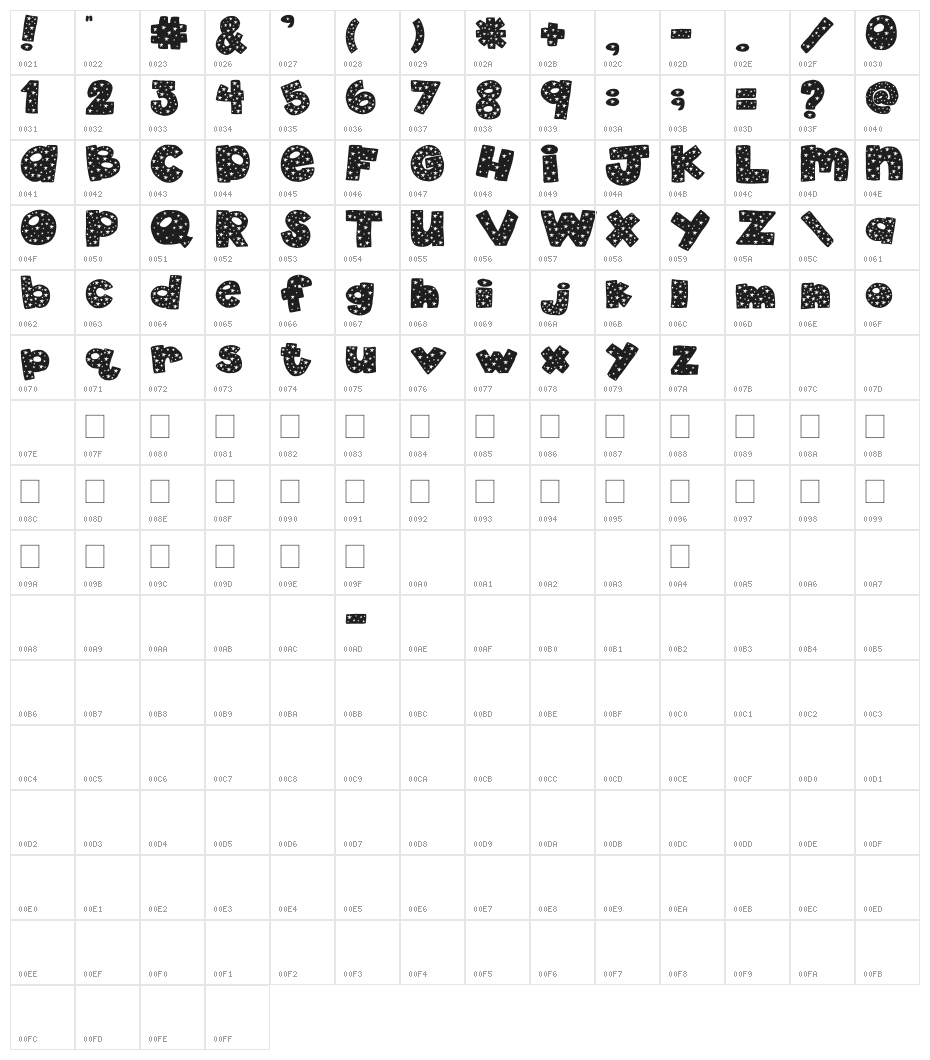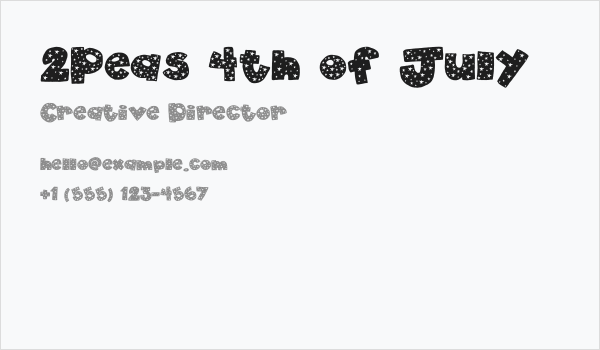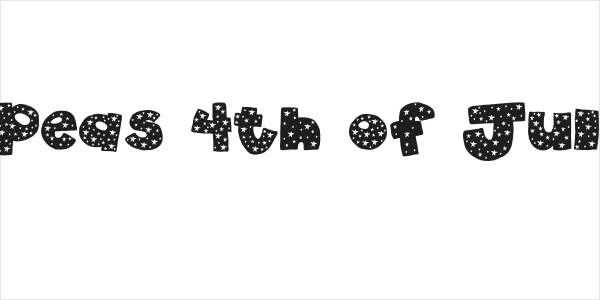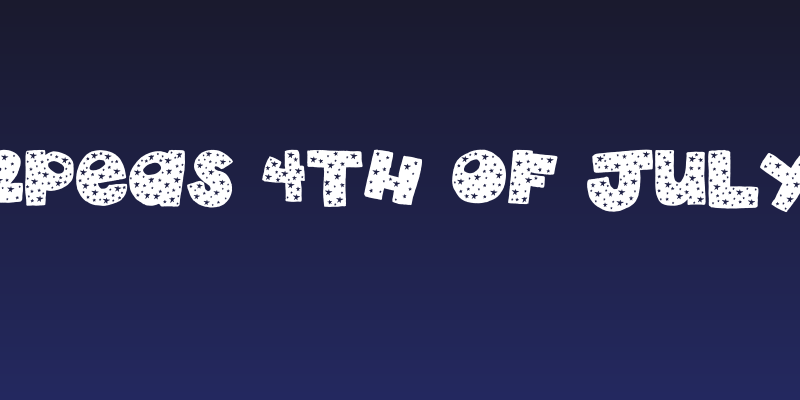
2Peas 4th of July Font
2Peas 4th of July Description
This playful and festive font is characterized by its bold, chunky letters filled with star patterns, evoking a sense of celebration and fun. The uppercase and lowercase letters maintain a consistent style, with rounded edges and a slightly uneven baseline that adds to its whimsical charm. The numbers and special characters follow the same design, making it a cohesive choice for themed projects. The font's decorative nature makes it ideal for eye-catching designs, particularly those related to holidays or events. Its unique style is both engaging and visually appealing, perfect for capturing attention.
| Proposed Projects | Ideal for holiday-themed posters, party invitations, children's book covers, and festive banners. |